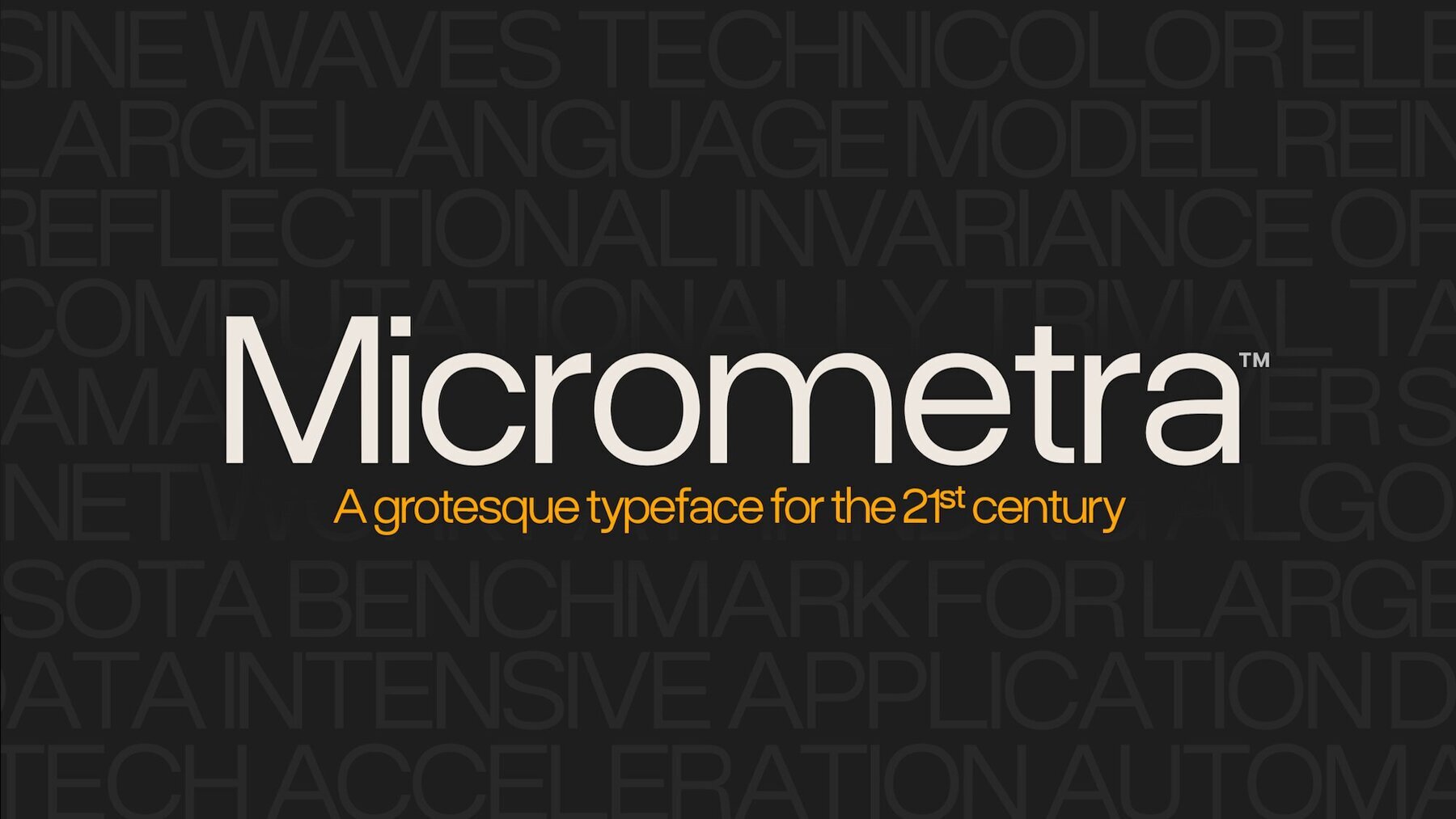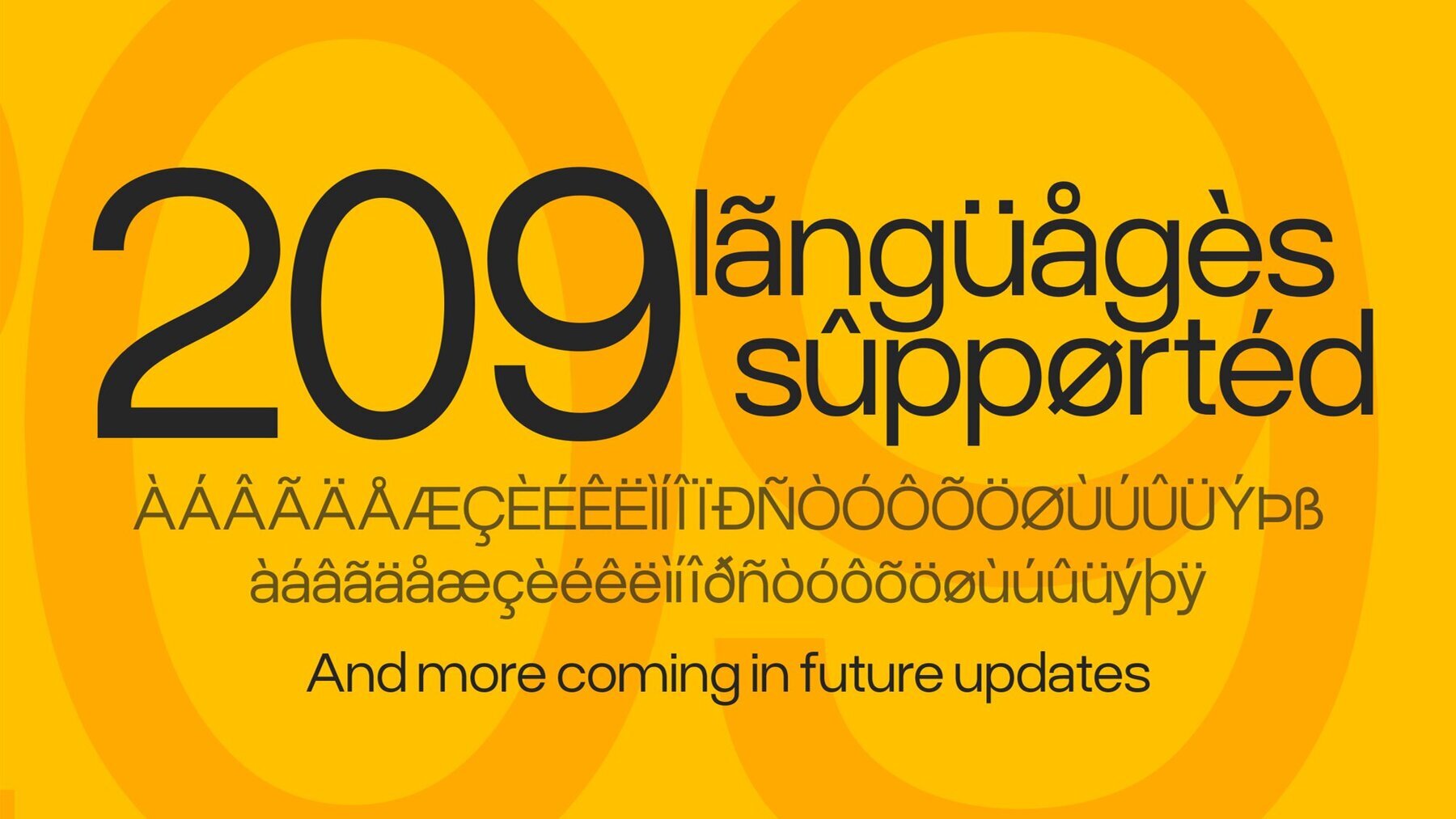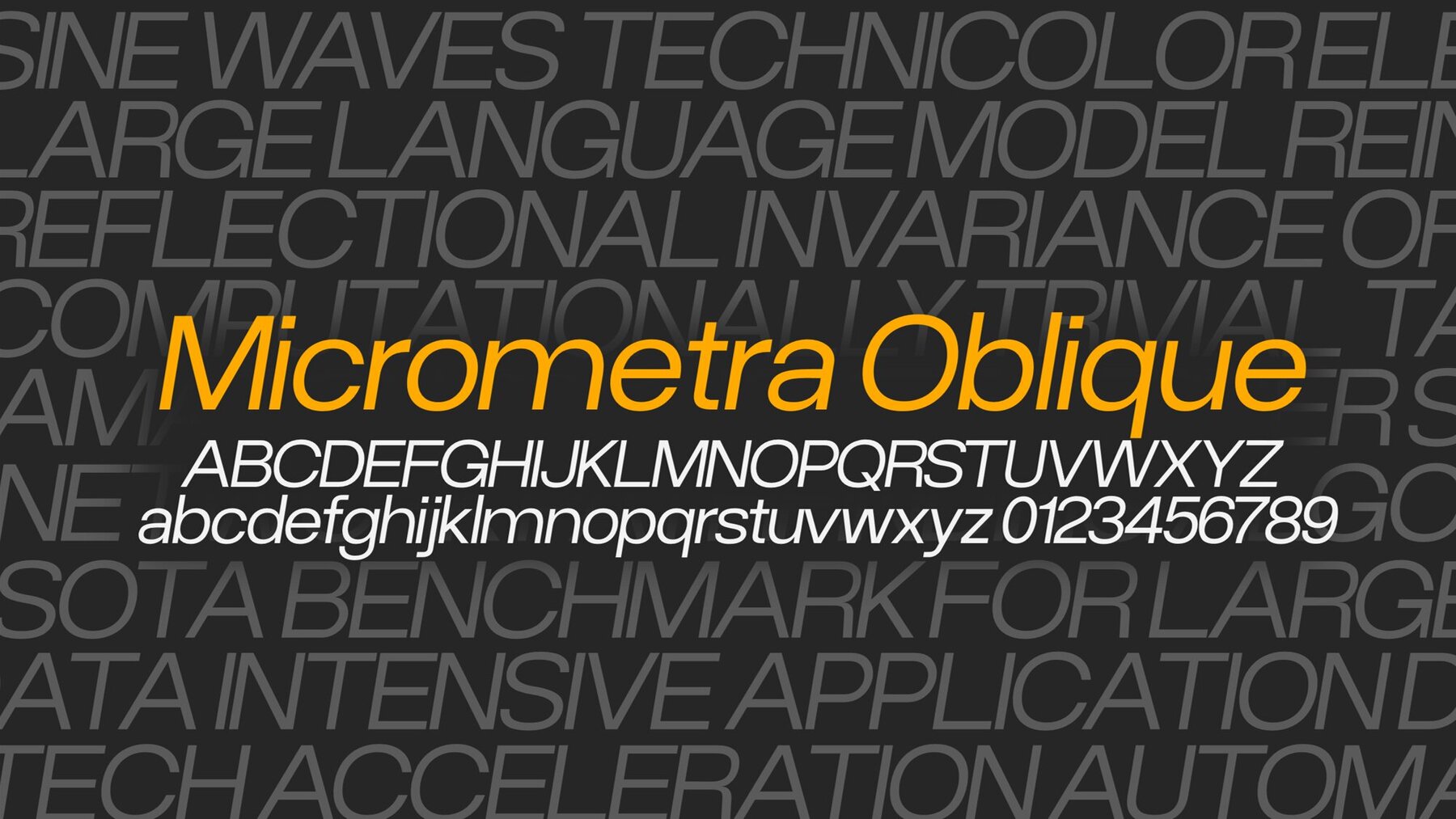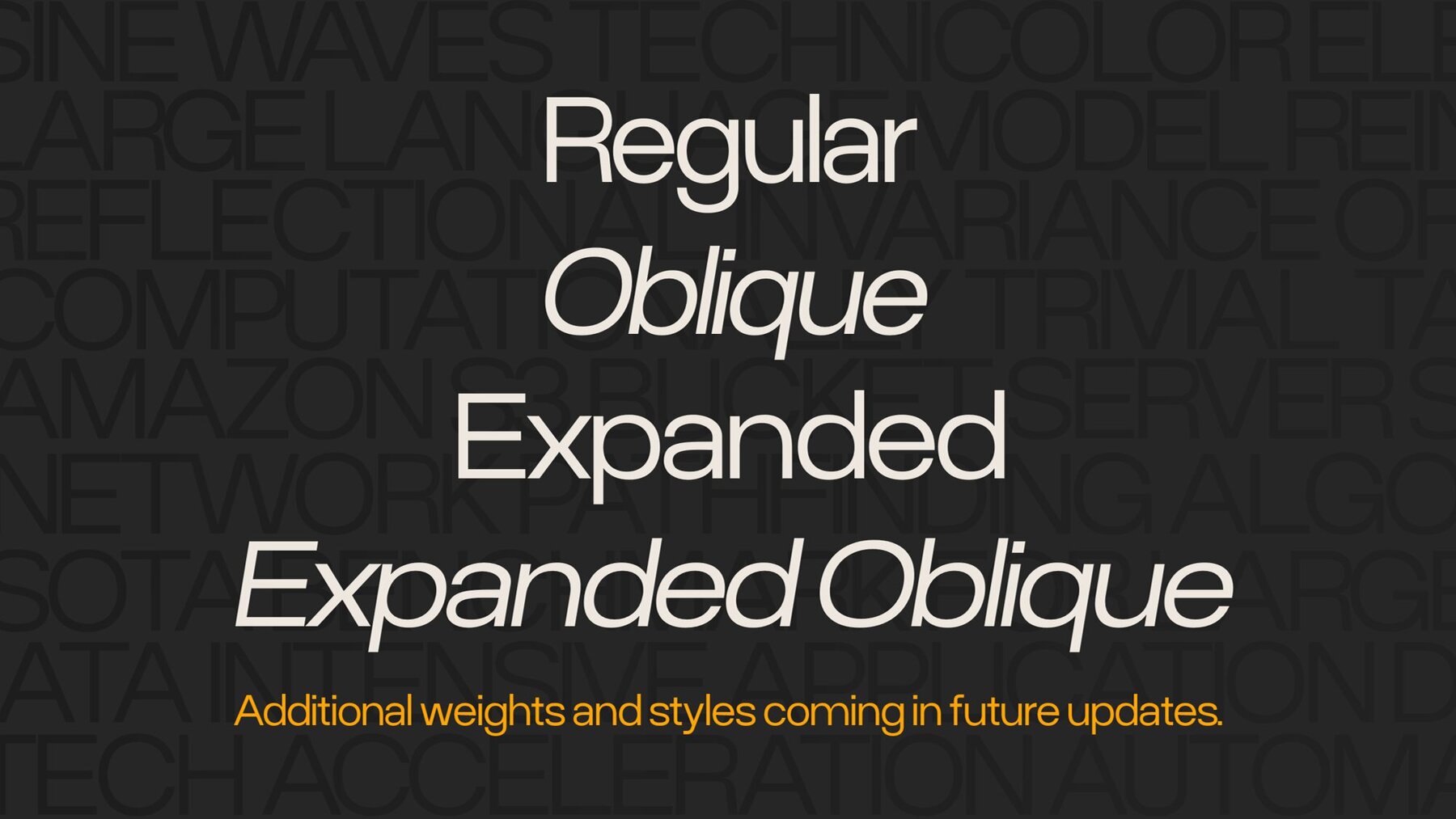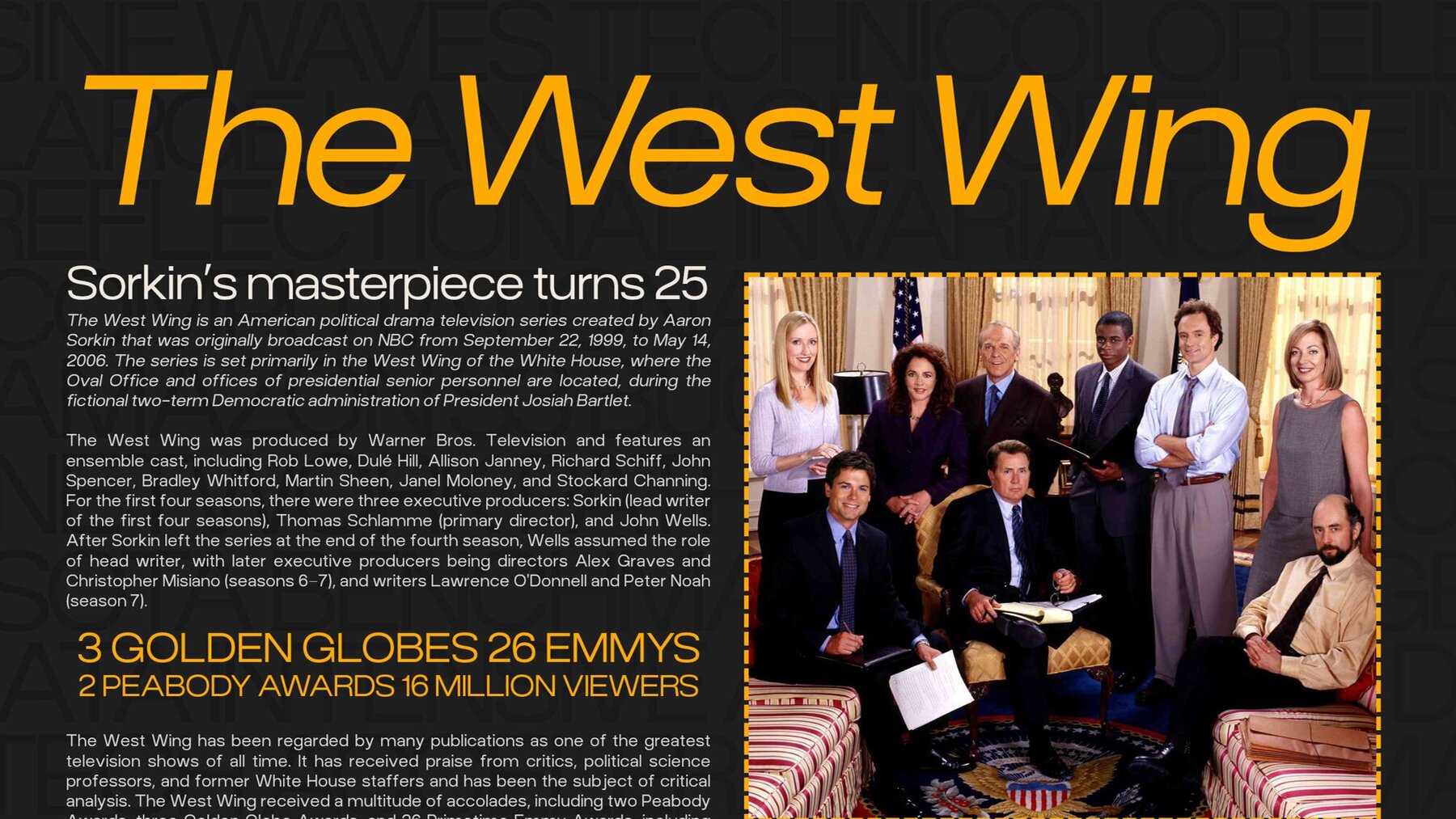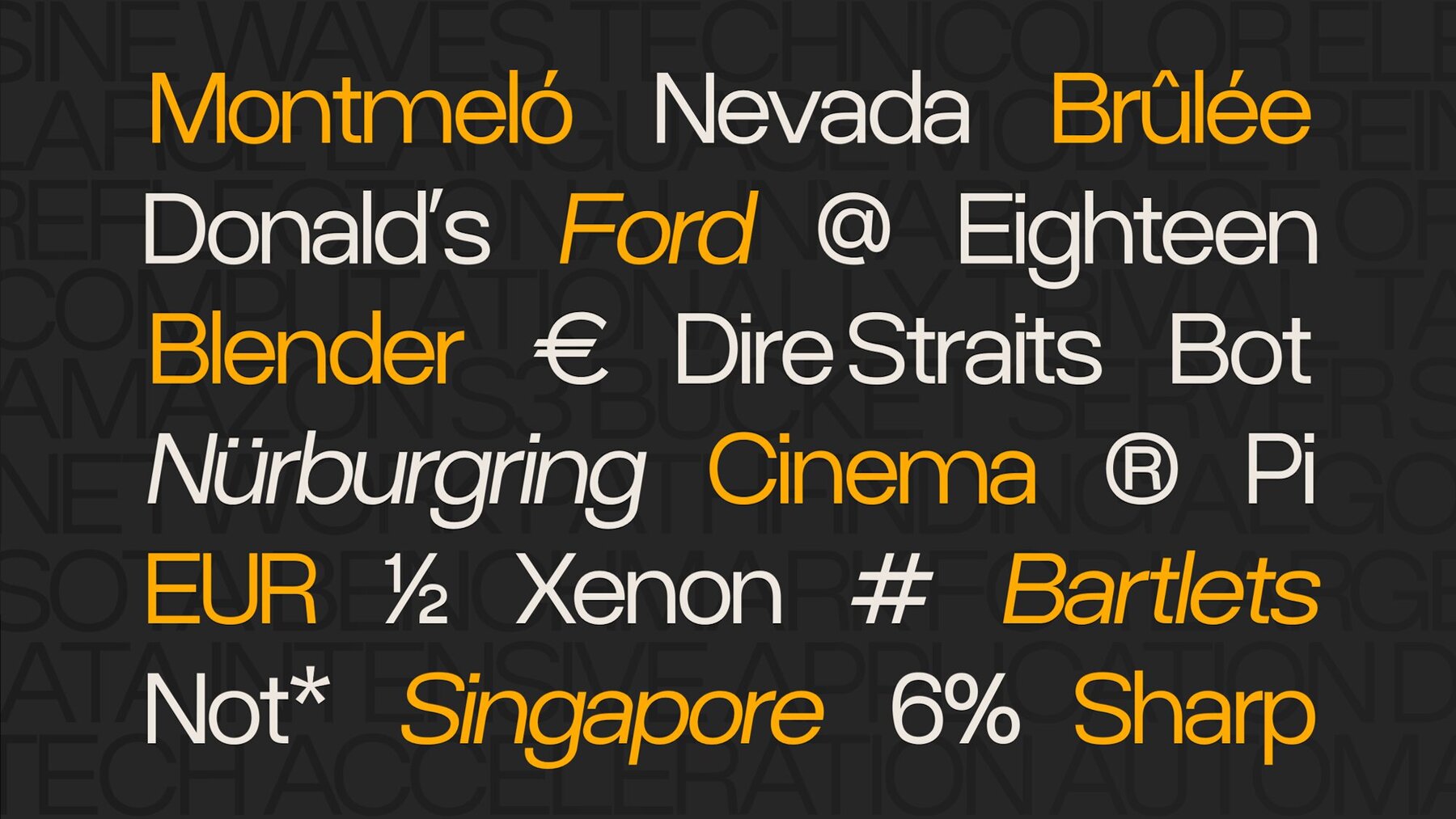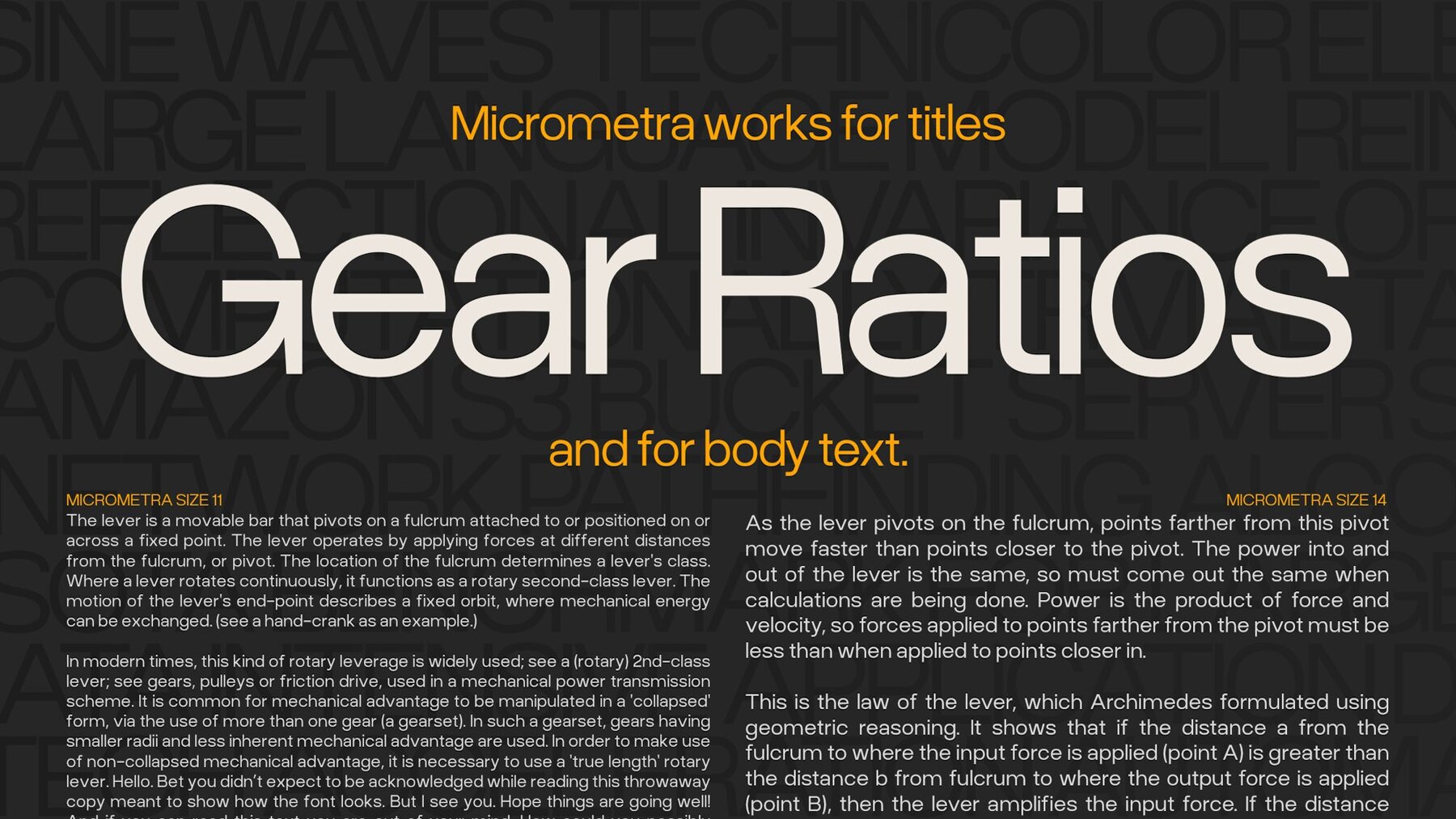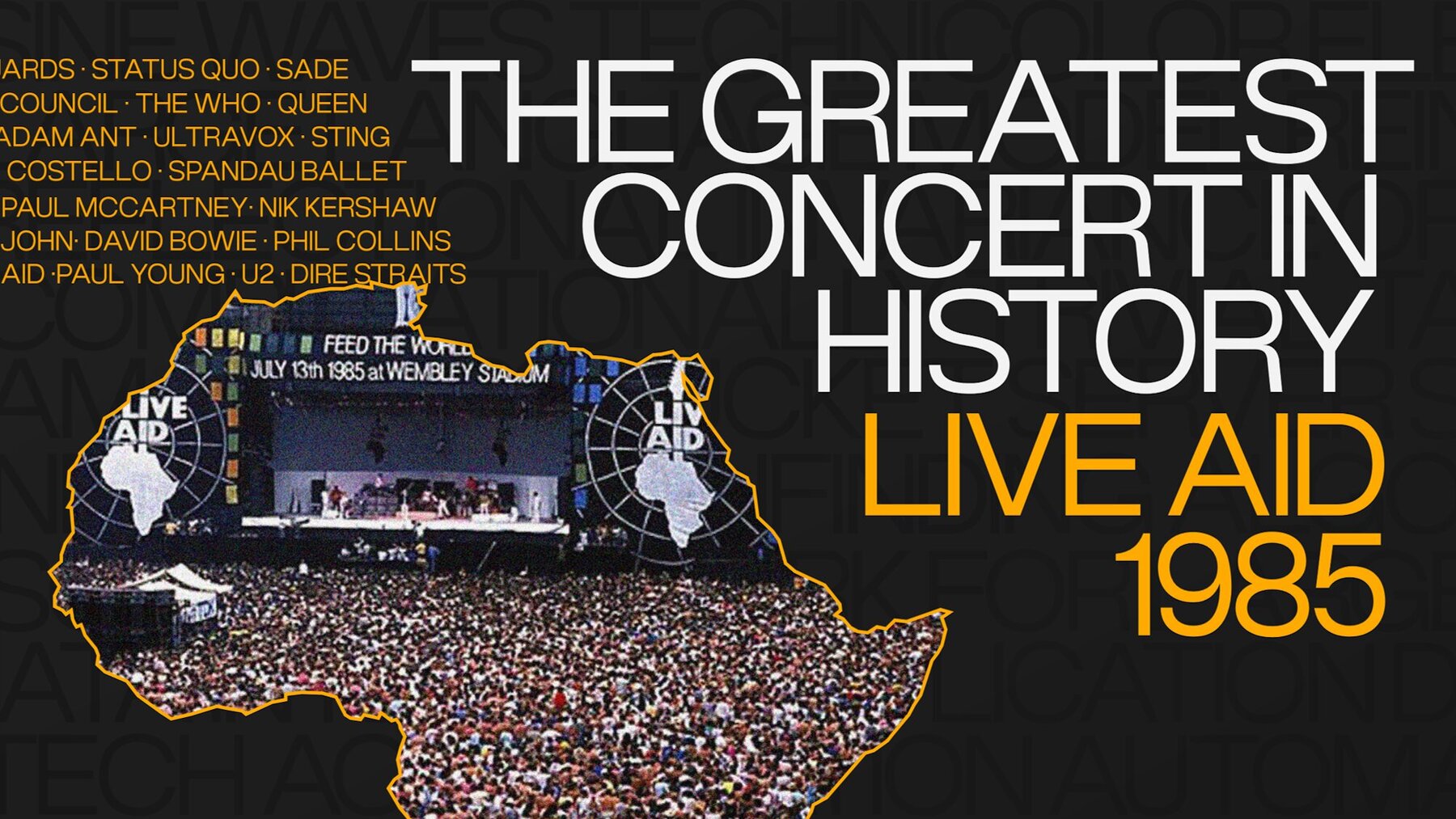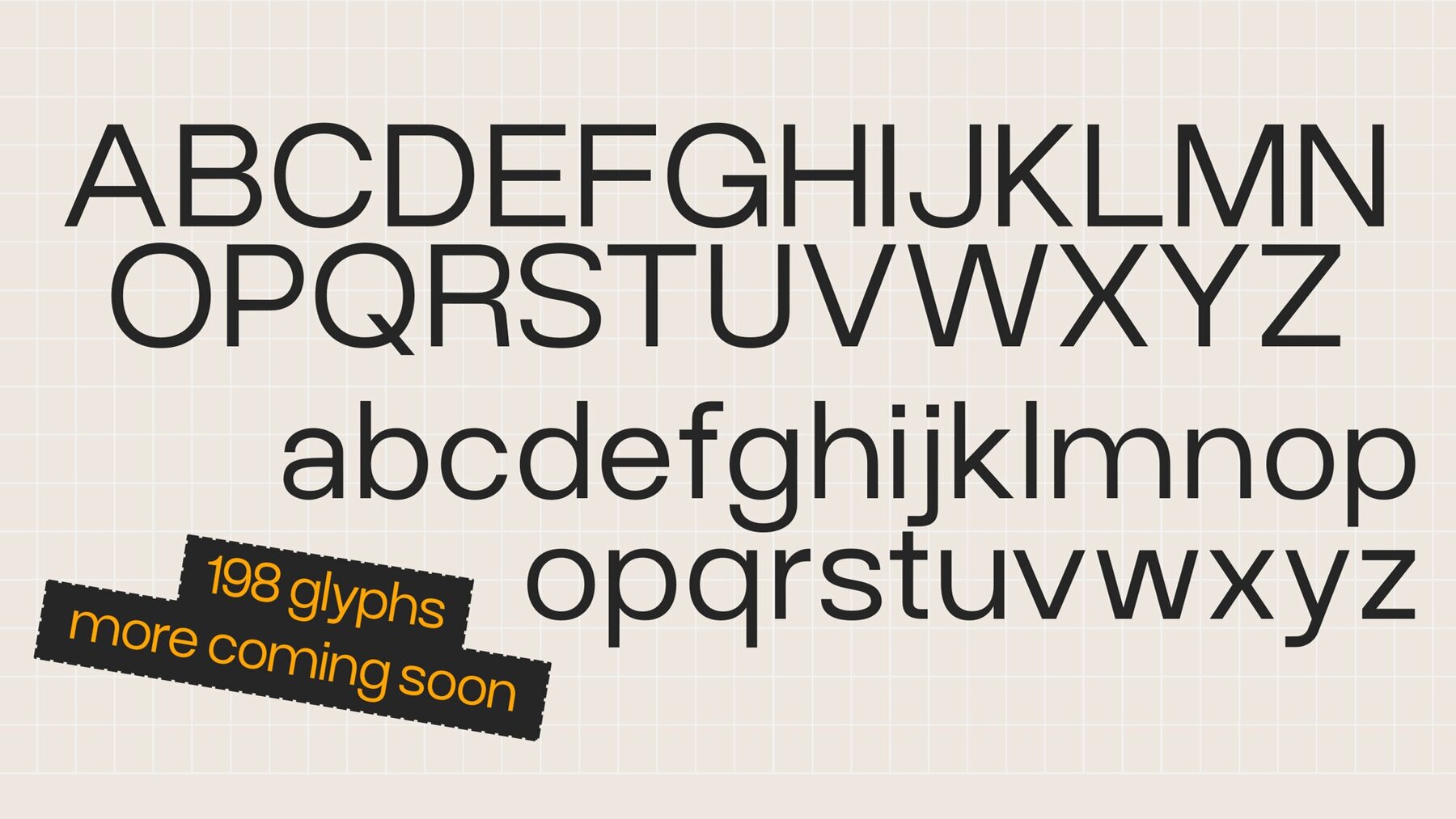
Micrometra Font
Micrometra is a contemporary reimagining of grotesque design, the result of combining the timeless structure of Akzidenz and Helvetica, and the feel of dynamism, optimism and versatility of 21st century industry. The wide open counter spaces, slight thinning of the stroke at curved joints and lightly squared, proportional construction fills Micrometra with peculiarity while remaining a workhorse standard typeface, good for 5px text on a phone and massive titles alike.